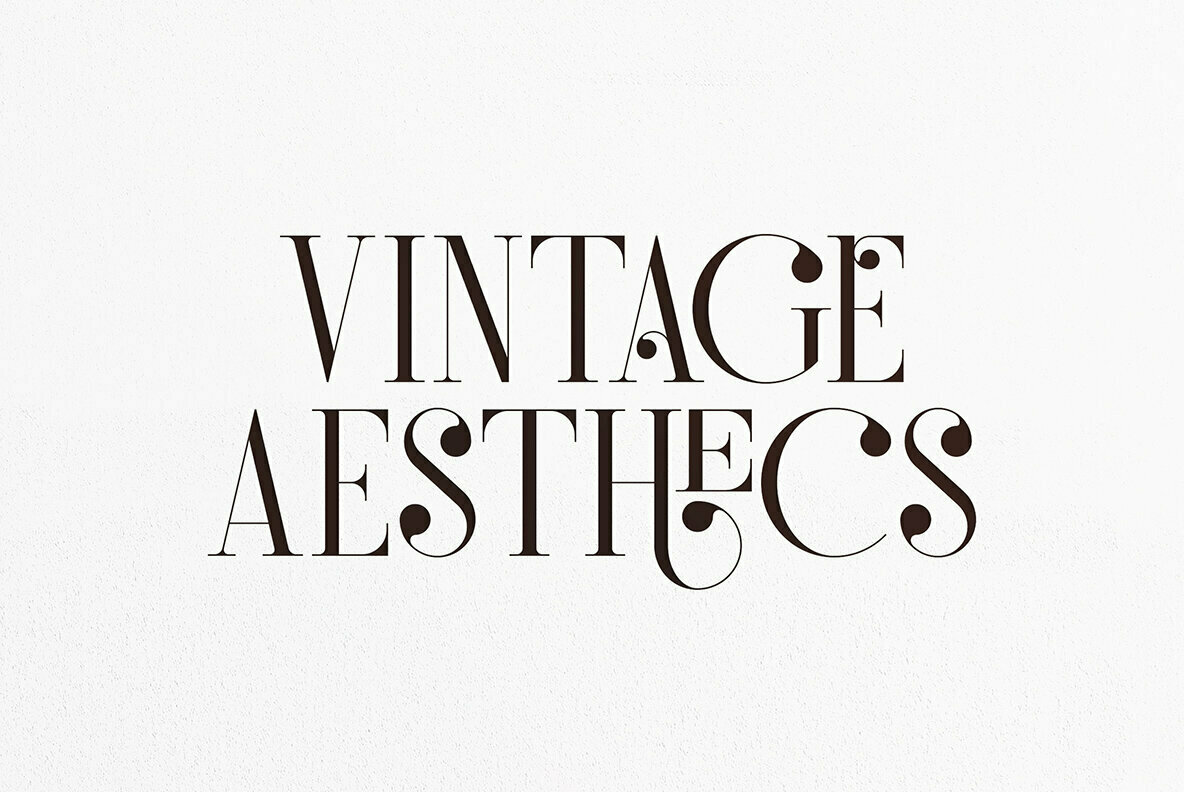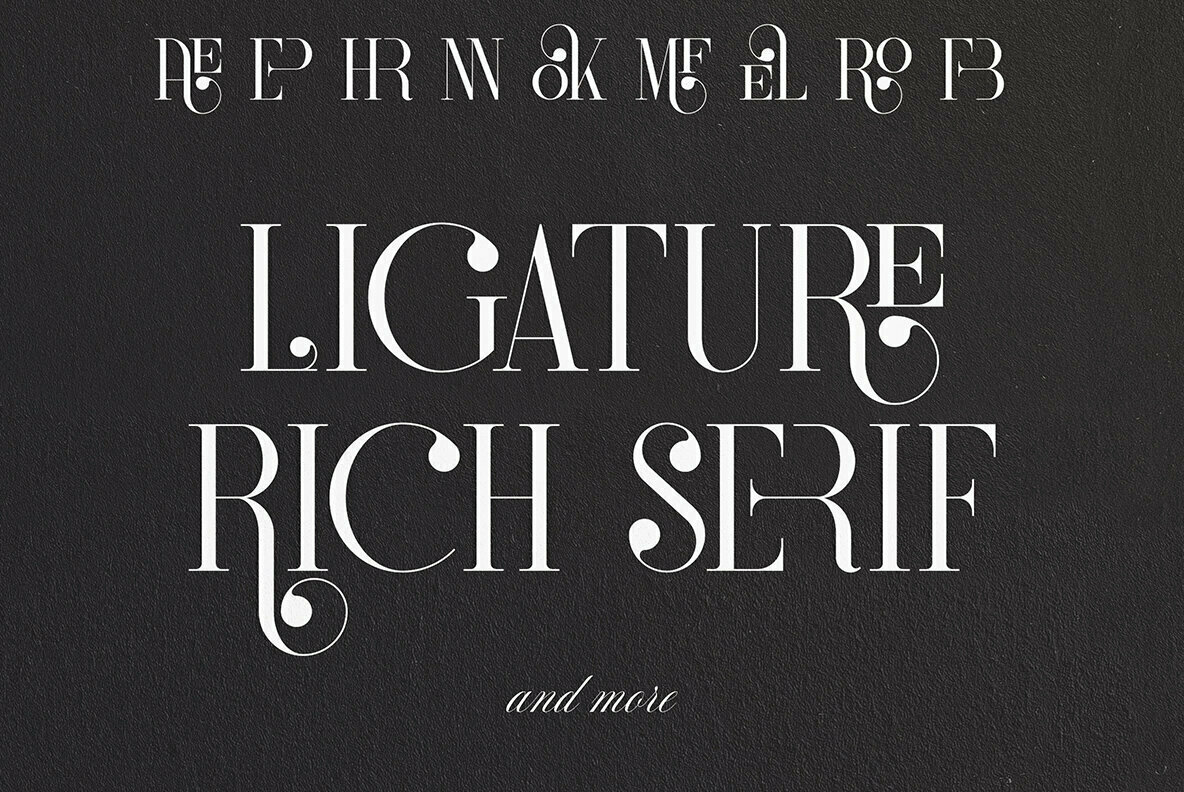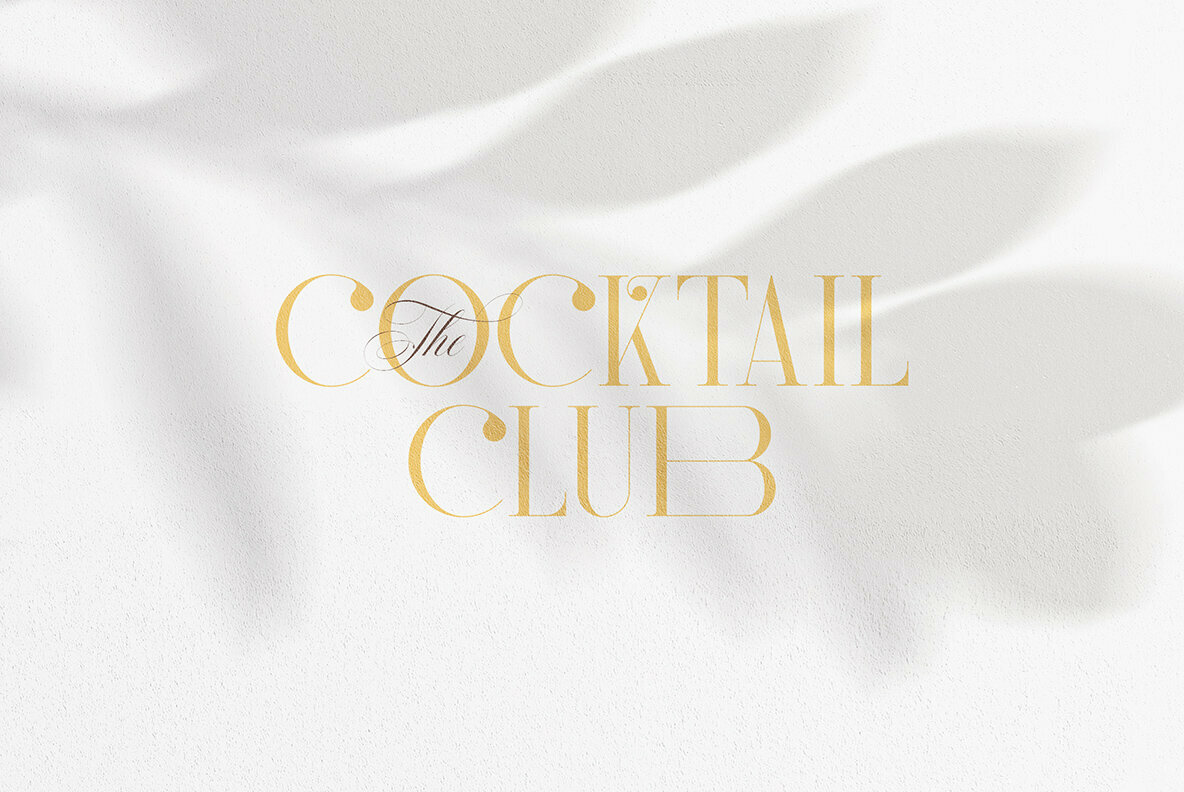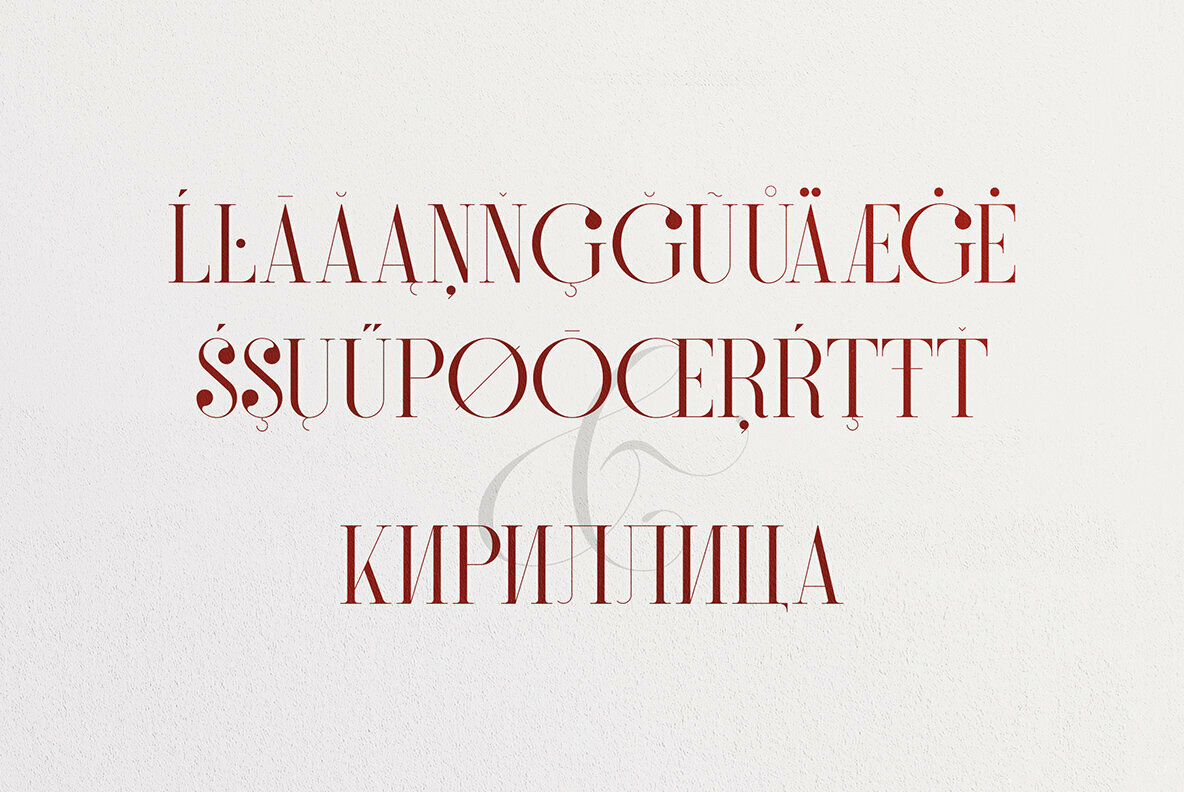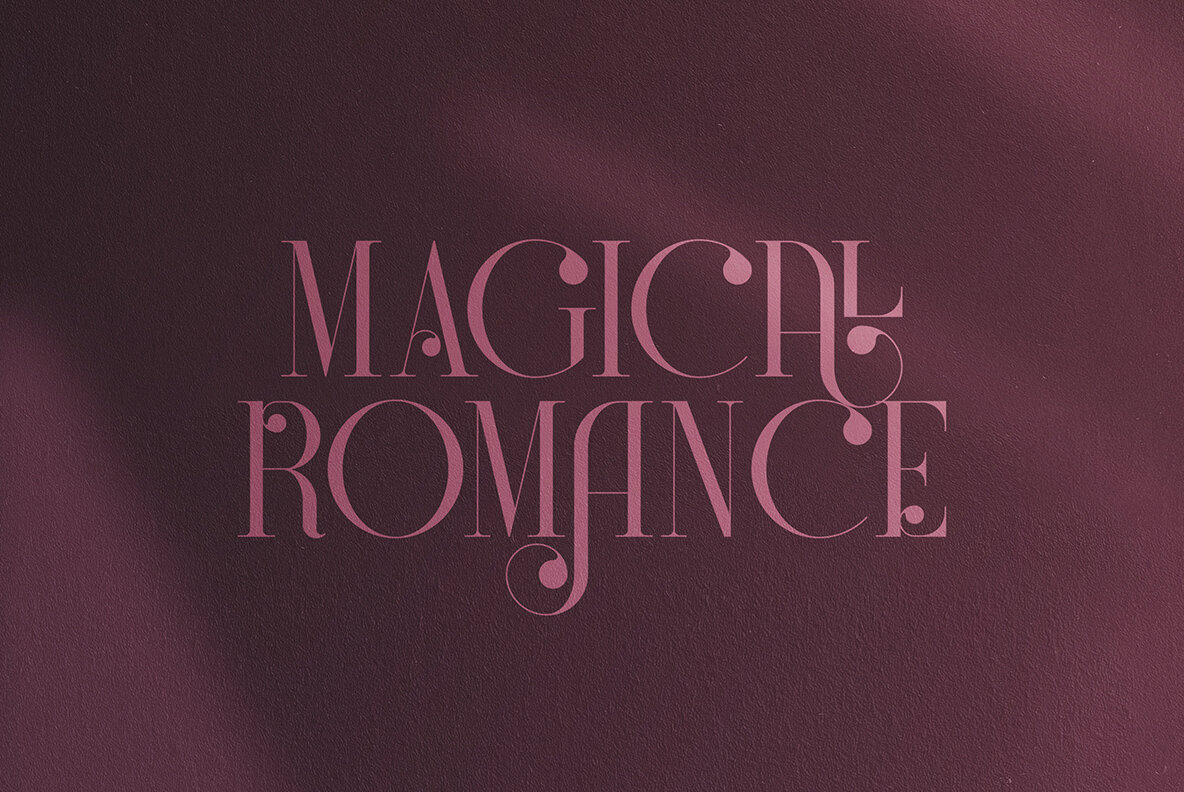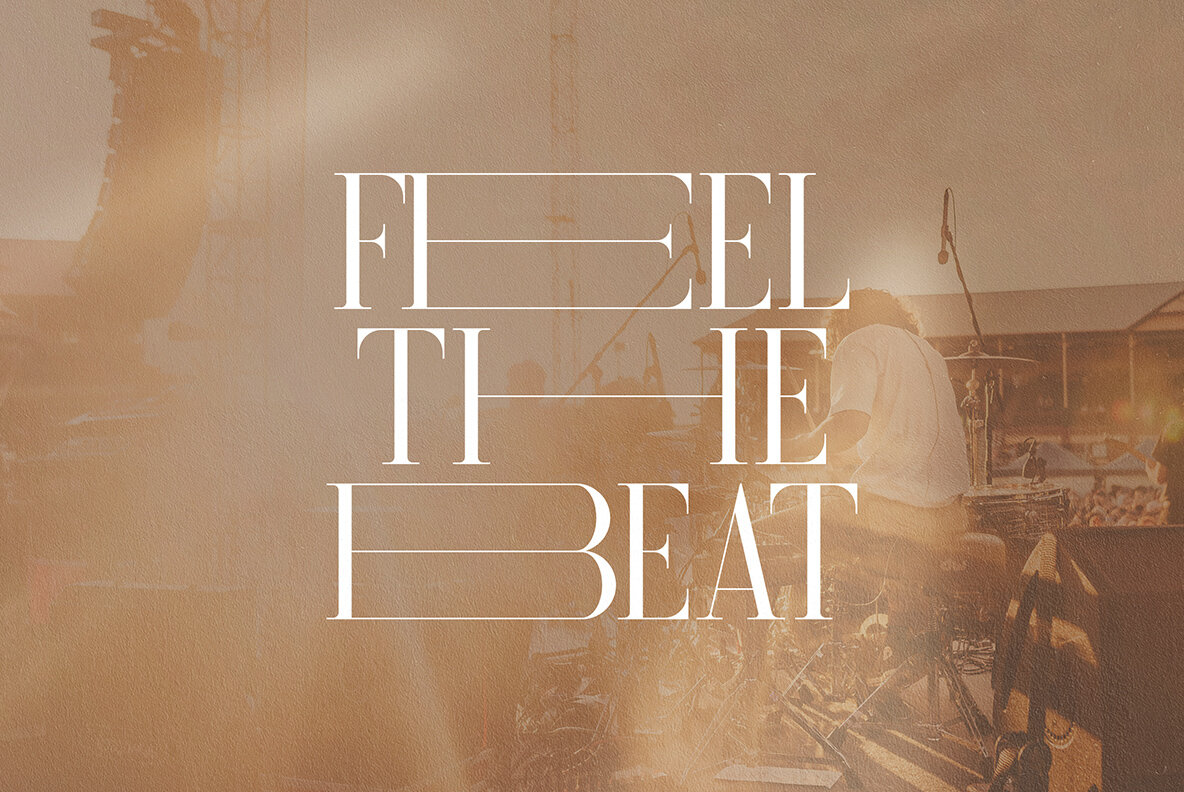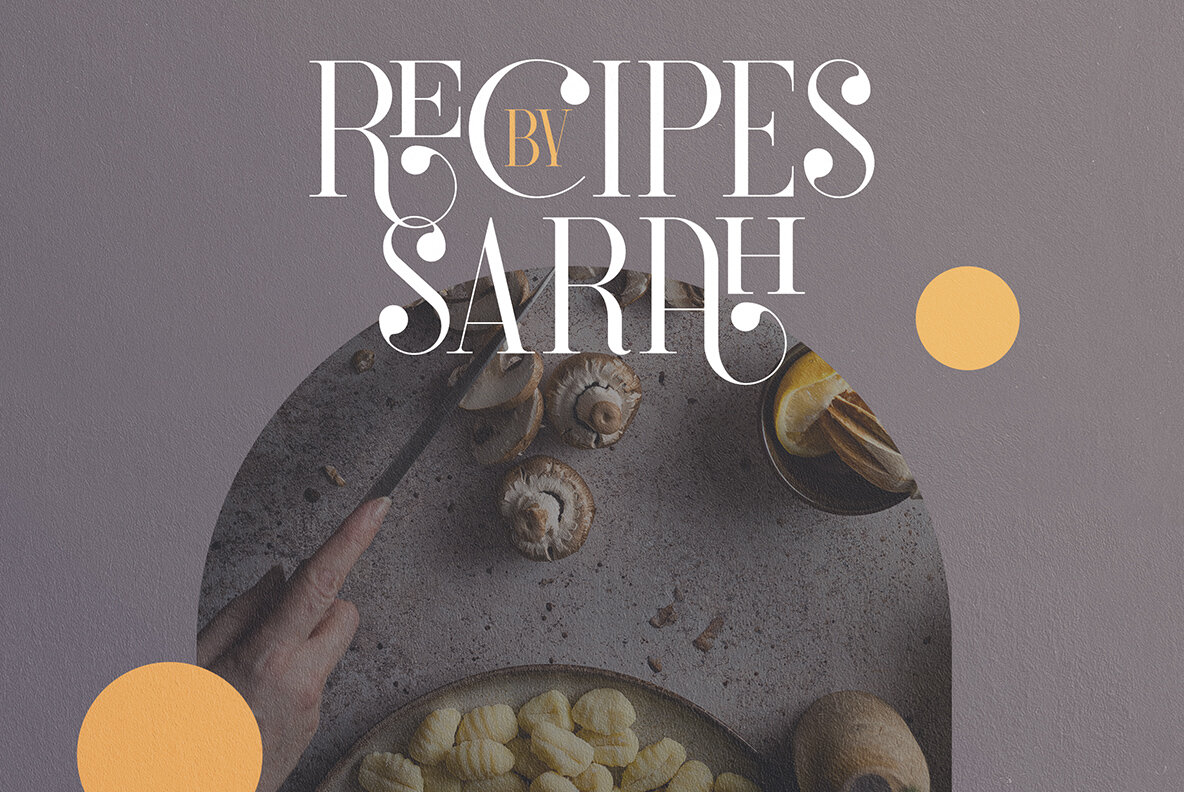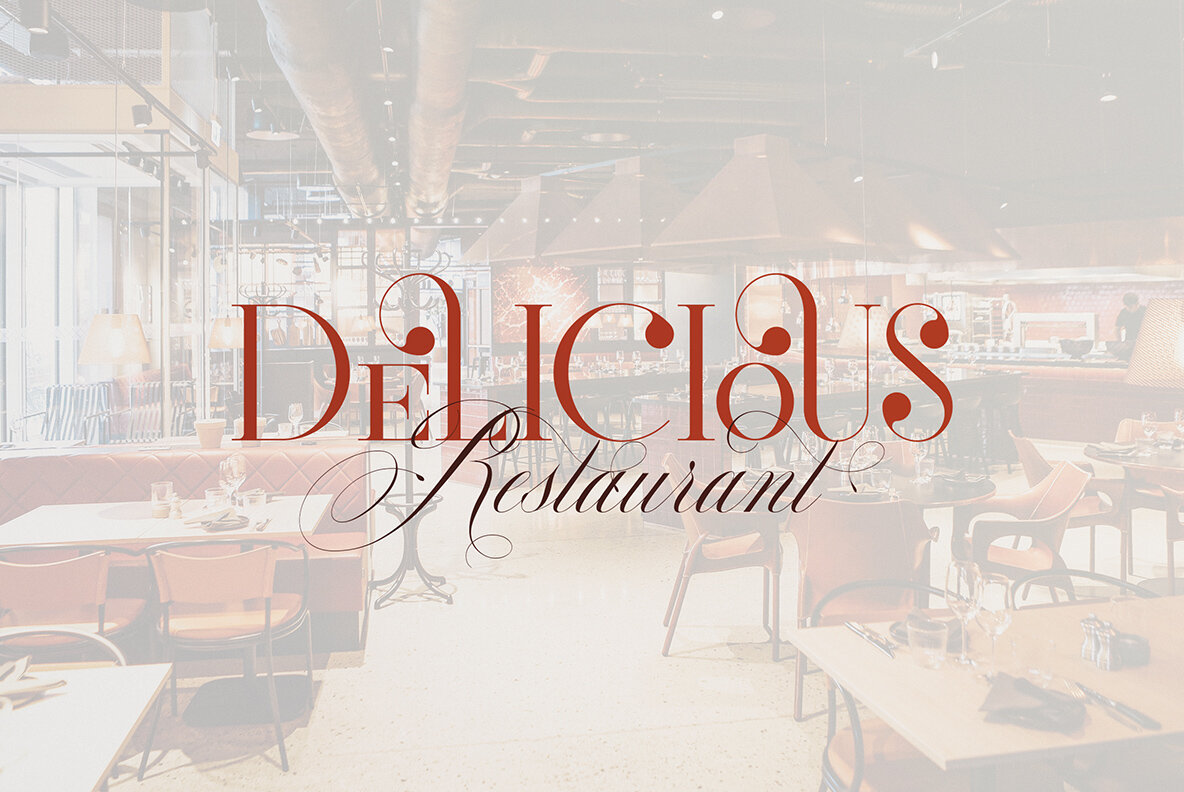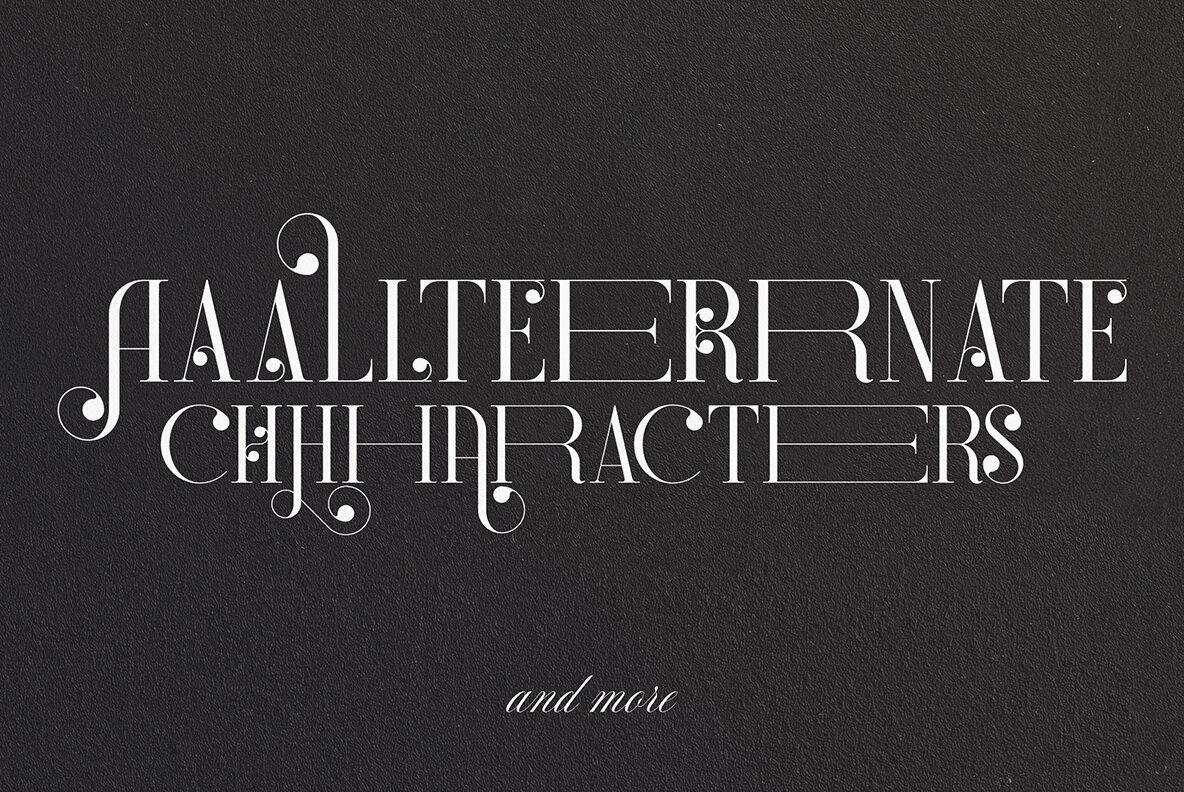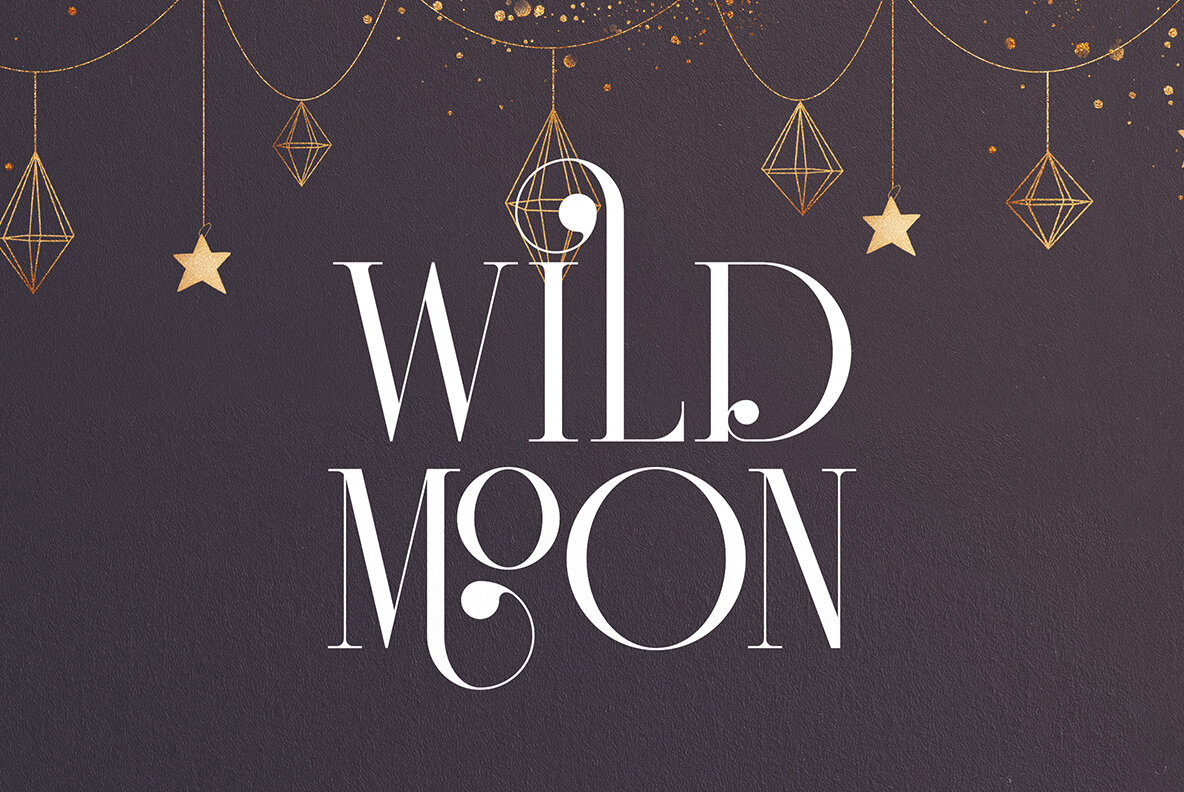
Redmark Font
Redmark Regular
Redmark offers an elegant all-caps serif font that marries vintage influence with a clean contemporary aesthetic. This typeface evokes the charm of 1980s design, enriched with alternate and ligature glyphs to set your typography apart. Embrace the distinctive qualities of Redmark, perfect for giving your design projects a timeless allure.Redmark: A Vintage-Inspired Serif Font